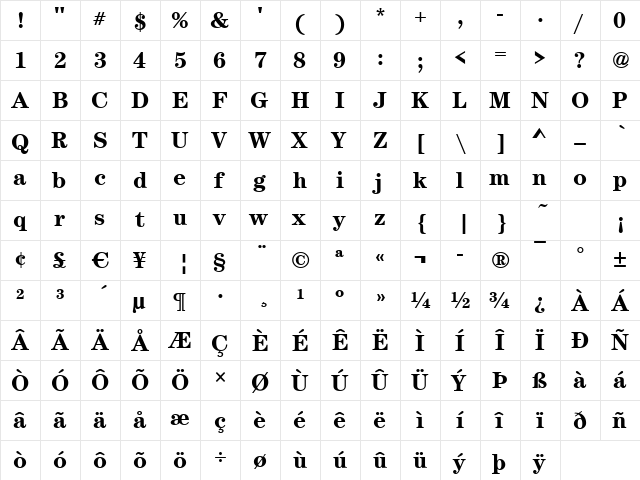
CenturyNova Bold
Design Context for CenturyNova Typeface
CenturyNova offers clean, dependable letterforms without strong stylistic allegiance, making it a practical choice for designers who need flexibility. Its bold stroke weight gives it real presence on the page.
Pro Tip: Use CenturyNova in both headline and body roles to test its range before committing to a single application.